When it comes to holiday design, typography plays a key role in setting the right mood. Just like Christmas has its own traditions, the fonts you choose should also reflect the warmth, joy, and magic of the season. That’s why we’ve created this collection of 25 Christmas fonts to help you bring festive spirit into your projects.
From elegant brush fonts to playful serif typefaces, from snowflake-inspired fonts to candy cane striped lettering, these holiday fonts perfectly capture the cheerful and cozy essence of Christmas. Whether you’re designing a Christmas greeting card, crafting party invitations, making gift tags and labels, or working on holiday posters, flyers, and social media graphics, the right typeface will instantly add a festive charm.
Our collection includes:
❄️ Snowflake fonts for a frosty winter feel.
🍬 Candy stripe fonts that bring a sweet holiday touch.
🎁 Playful handwritten fonts perfect for children’s projects and family events.
🌟 Elegant calligraphy fonts for classy invitations and seasonal branding.
1. Great Vibes
Great Vibes – is an elegant italic typeface with smoothly connected letters. Its uppercase letters are decorated with beautiful strokes. Created by TypeSETit, this font is a great choice for designing invitations and greeting cards this holiday season.
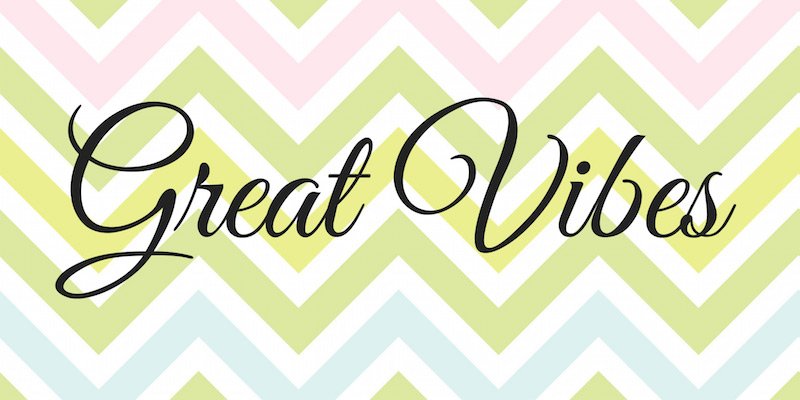
2. Big Snow
Big Snow by Khurasan is a free modern calligraphy font licensed for personal and commercial use. This bold font is perfect for your winter themed designs for Christmas and New Year. The font is available in OTF and TTF formats.
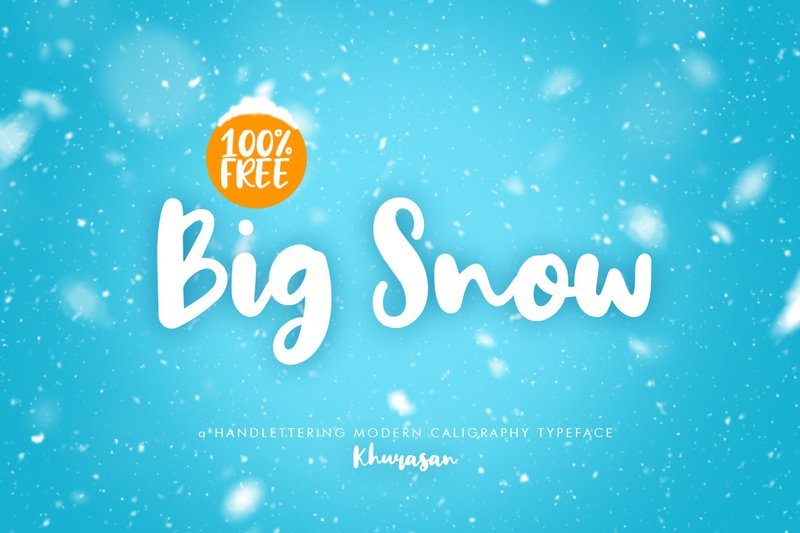
3. Christmas Time Display Font
Reminiscent of traditional American woodcut fonts from the late 19th and early 20th centuries, the handwritten Christmas style is perfect for creating greeting cards during this festive time of year.
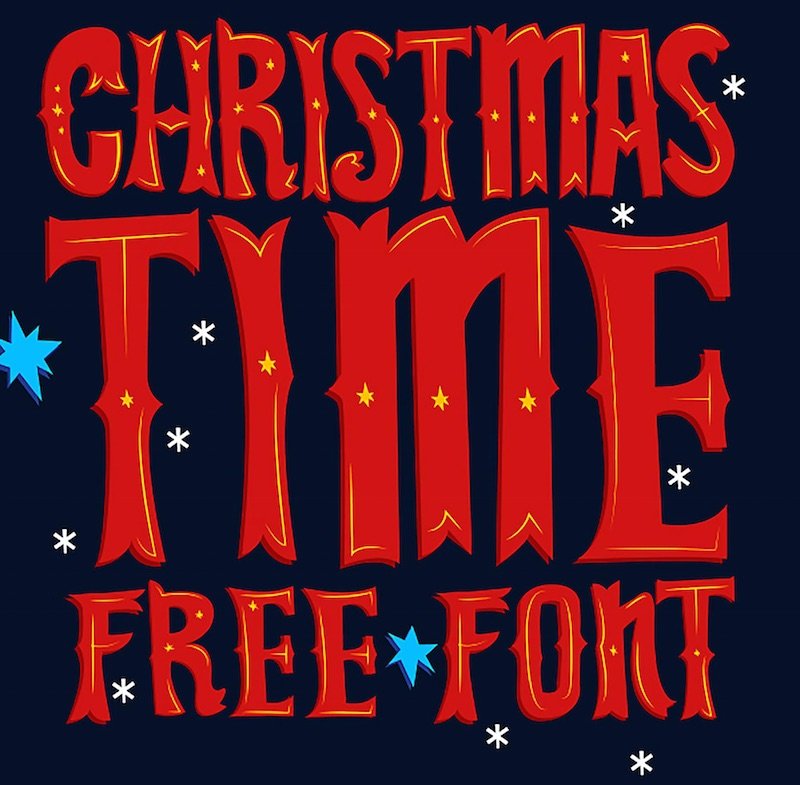
4. Coventry Garden Font
When designing the Coventry Garden typeface, typographer Dieter Steffmann drew inspiration from an old book on letterhead design.
This old English serif typeface has an Art Deco style of tall letters, and its lowercase letters are a variation of uppercase letters with their bright strokes, as shown in the image above. Perfect for creating holiday graphics in a vintage style. Font Format: TTF
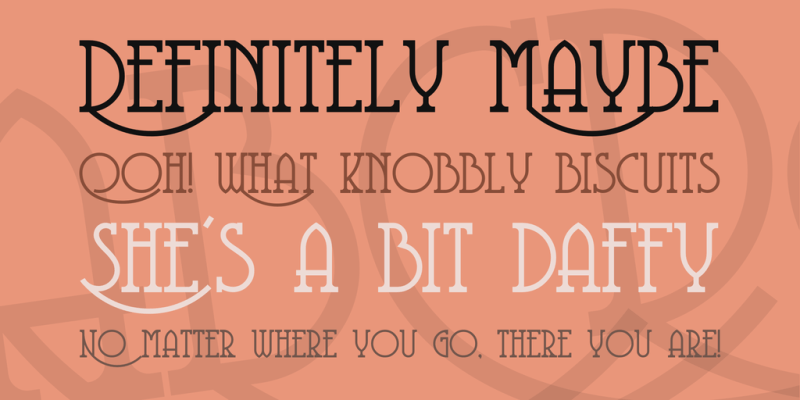
5. Festival Font
Festival Font is a decorative font released by JoannaVu, perfect for adding a festive theme to your Christmas designs.
A unicase font, its lowercase letters are marked with asterisks and provide an alternative variation of uppercase characters, perfect for mixing and matching your festive and Christmas designs. Available for free download in TTF format.
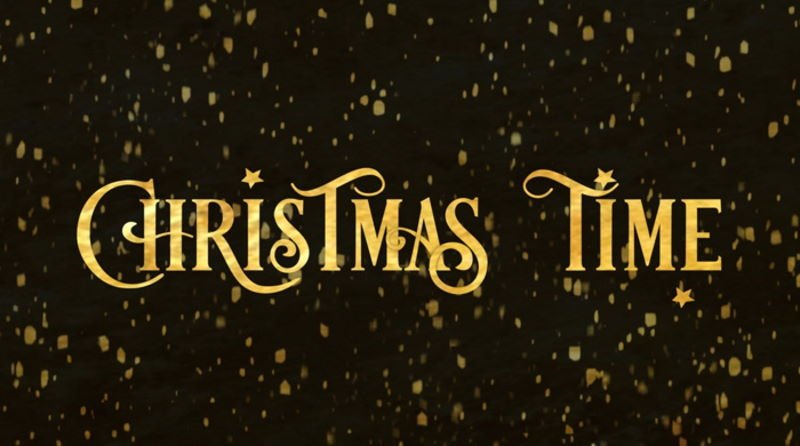
6. Christmas on Crack
Christmas on Crack is a gothic typeface created by David Lovelace of Parallax. The font features 80 characters including uppercase letters, lowercase letters, numbers and symbols. The swirls in some of its glyphs such as upper case C, lower case s, t and especially the dots over i and j give the font a fun twist. Available for free download in TTF format.
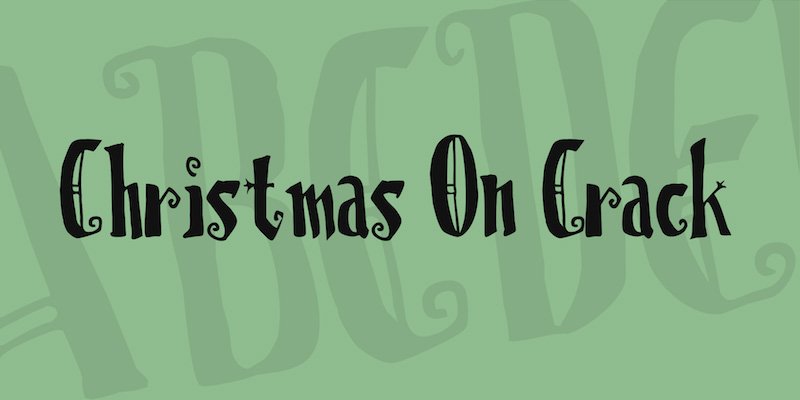
7. Mountains of Christmas Font Family
Mountains of Christmas is a playful, casual-style serif font that includes fonts in two thicknesses – Regular and Bold.
Its bouncy, staggered look gives it a carefree and fun vibe that is perfect for when you want to give your words a warm personal touch. The font, made by Crystal Kluge, can be downloaded for free in TTF format. Mount Christmas is also available on Google Fonts.
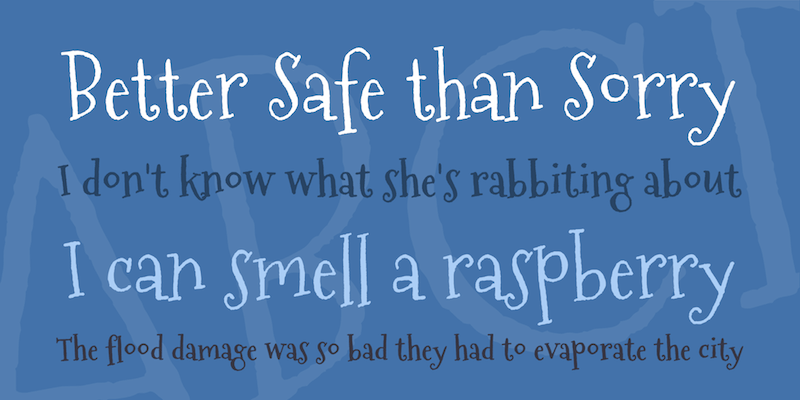
8. Christmas Story Font
Christmas Story by fikryal is a modern handwritten font with beautiful beginning and ending strokes. Available for download and free to use in your personal projects, the font is available in OTF and TTF font formats.
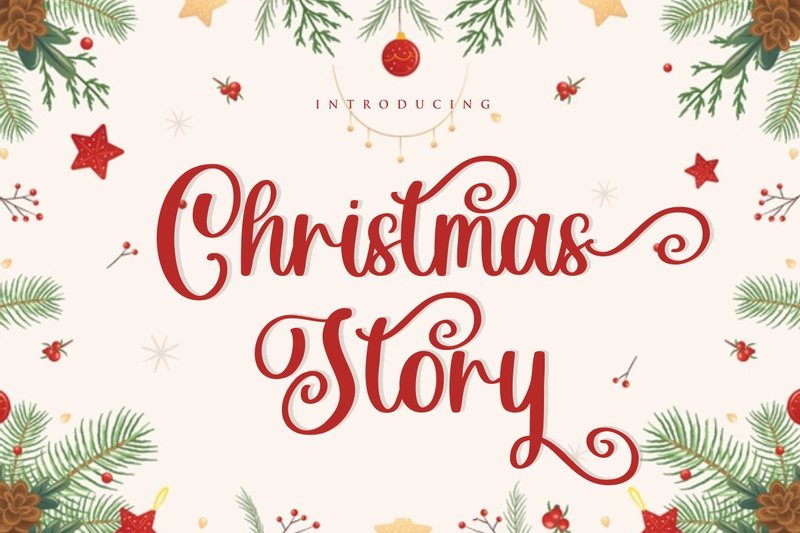
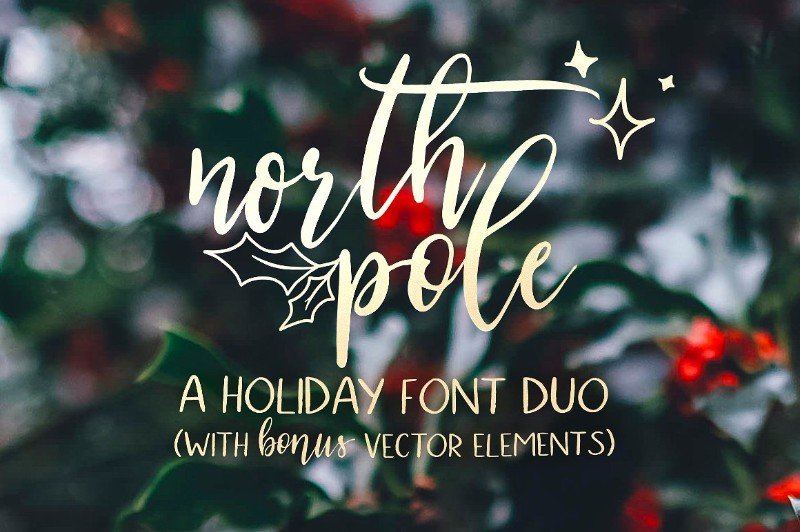
7. Hallelujah
Hallelujah font is perfect for creating posters, apparel, packaging, etc. It is available in 3 styles: light, regular and brush, all in OTF format. The font was designed by Tardiex.
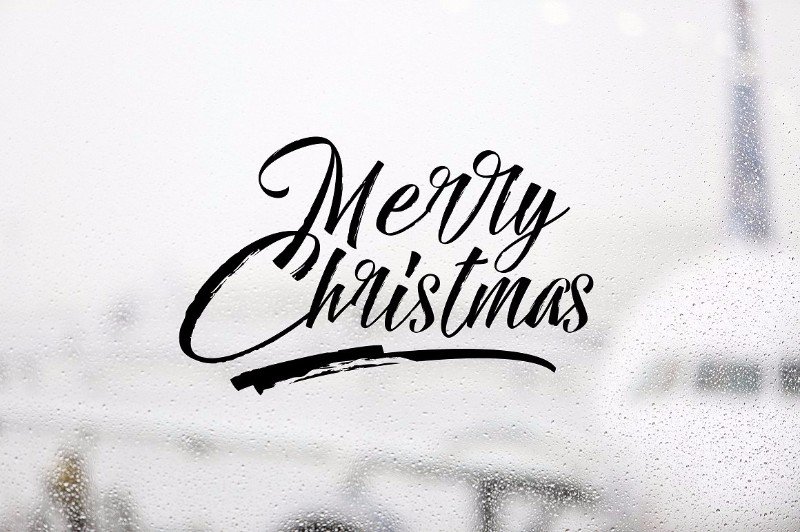
8. Natalia Script
Natalia Script от Maghrib – is a hand-drawn font that will help you achieve the stunning look of hand-drawn letters on cards, invitations and promotional graphics digitally.